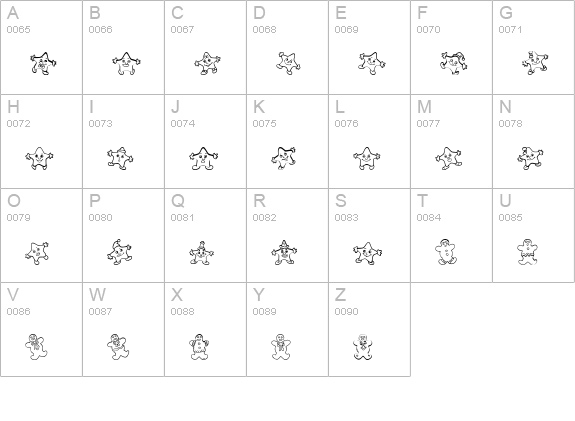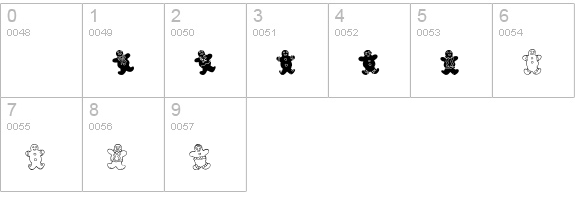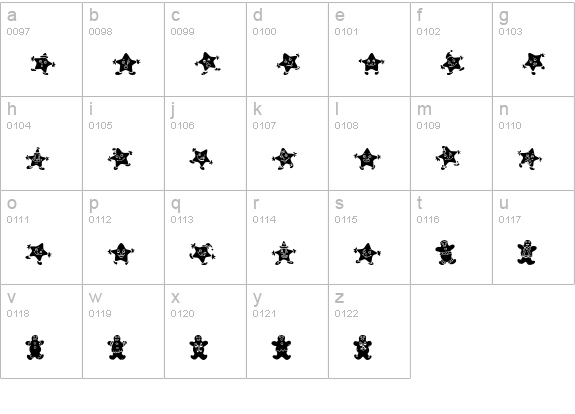
WWGingerbread Font Details
Introducing WWGingerbread, a delightful and whimsical font that will add a touch of sweetness to your designs. This charming typeface captures the essence of gingerbread with its playful curves and decorative elements, making it perfect for adding a festive touch to your holiday projects, bakery logos, invitations, and more. What makes WWGingerbread even more delightful is that it is available for free! Yes, you read that right. This amazing font can be freely downloaded at FontsMarket.com, allowing you to bring a touch of warmth and coziness to your designs without spending a dime. With its unique and eye-catching letterforms, WWGingerbread is sure to capture the attention of viewers and evoke a sense of nostalgia and joy. Each character is meticulously crafted, incorporating intricate details that resemble the icing on a freshly baked gingerbread cookie. Whether you're working on a personal project or a professional design, WWGingerbread will surely make your creations stand out from the crowd. Its versatility allows it to be used in various contexts, from holiday-themed designs to children's books and beyond. So why wait? Download WWGingerbread for free at FontsMarket.com and start adding a deliciously delightful touch to your designs today. Let this charming font transport your audience to a world of warmth, joy, and sugary goodness.